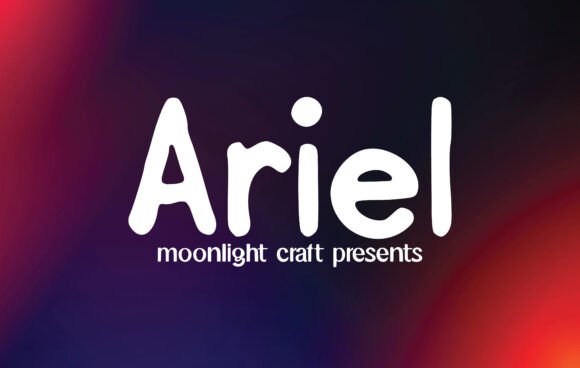
Ariel Font Download Premium Font : If your creative project needs a touch of elegance and personality, Ariel Font might be the perfect answer. This beautifully handwritten typeface captures a balance of charm and clarity that makes it ideal for modern branding, eye‑catching quotes, social media graphics, and more.
What is Ariel Font?
✨ Ariel is a lovely and authentic handwritten font designed to bring a human, personal touch to digital and print designs.
Unlike stiff or overly decorative script fonts, Ariel feels relaxed yet refined — with smooth, flowing curves and gentle strokes that add character without sacrificing readability. Each letter is carefully crafted to mimic natural handwriting, giving your text warmth and authenticity.
Why Designers Love Ariel Font
🌿 Handwritten Charm:
Every letter feels personal and organic, like a signature crafted by hand.
🎨 Elegant Yet Versatile:
Stylish enough for premium branding but friendly enough for casual posts and quotes.
💬 Perfect for Quotes & Social Media:
Makes words stand out in Instagram posts, Pinterest pins, or Facebook covers.
🛍 Great for Logos & Branding:
Adds uniqueness to boutique brand names, handmade products, or creative businesses.
📐 Easy to Read:
Despite its handwritten style, Ariel stays legible even at smaller sizes.
Best Uses for Ariel Font
Because of its blend of style and clarity, Ariel Font is perfect for:
✅ Logo Design:
Boutique stores, florists, photographers, wellness brands, and creative studios.
✅ Branding Materials:
Business cards, packaging labels, thank‑you cards, and product tags.
✅ Social Media Graphics:
Quotes, captions, highlight covers, and shareable content.
✅ Invitations & Stationery:
Wedding invites, birthday cards, menus, and custom event designs.
✅ Merchandise & Apparel:
T‑shirt slogans, tote bags, mugs, and custom gifts.
✅ Digital Products:
Ebook covers, digital planners, and website banners.
Wherever your design needs warmth and personality, Ariel Font delivers.
Design Tips for Using Ariel Font
✅ Use at Larger Sizes:
Ariel shines in headlines, titles, and short quotes. Avoid long paragraphs in this font.
🎨 Pair with Simple Fonts:
Combine Ariel with clean sans‑serif fonts (like Montserrat or Lato) for body text.
🌸 Soft Colors & Textures:
Pastels, watercolor backgrounds, or gold foil effects pair beautifully with handwritten fonts.
📏 Mind Your Spacing:
Don’t squeeze letters too close; slightly loose tracking can make the text look airy and elegant.
🖋 Mix Cases for Style:
Try using lowercase for friendly captions or all‑caps for bolder logos.
Creative Design Ideas with Ariel Font
✨ Instagram Quote Post:
“Be your own kind of beautiful” in Ariel Font over a minimalist background.
💌 Wedding Invitation:
Names of the couple in Ariel with a serif date line below.
🛍 Boutique Logo:
Store name in Ariel Font, paired with a delicate floral icon.
🎁 Thank‑You Card:
Short “thank you” note hand‑lettered in Ariel Font.
🎉 Birthday Banner:
“Happy Birthday” in large Ariel letters with colorful confetti.
Why Ariel Font Stands Out
Handwritten fonts add personality and warmth that computer‑generated fonts often lack. Ariel Font feels approachable, creative, and timeless — perfect for modern branding, social media, and personal projects alike.
Its smooth curves and friendly vibe make text feel genuine and handcrafted, helping your message connect emotionally with your audience.
Final Thoughts: Bring Creativity & Warmth to Your Designs
Ariel Font is more than just pretty letters — it’s a way to add authenticity, elegance, and personality to your creative projects. From branding to social media quotes, it helps your words stand out beautifully.